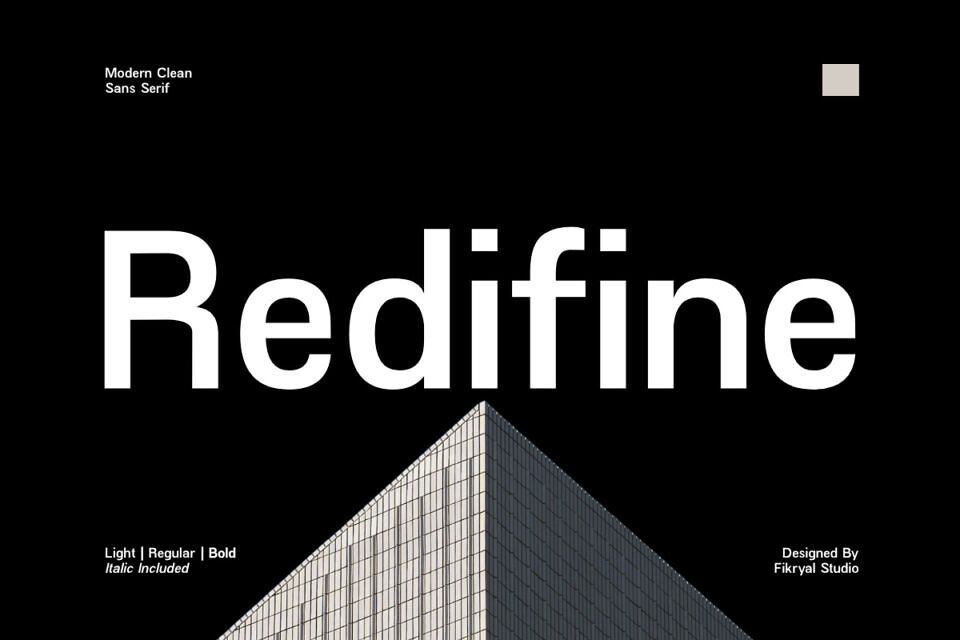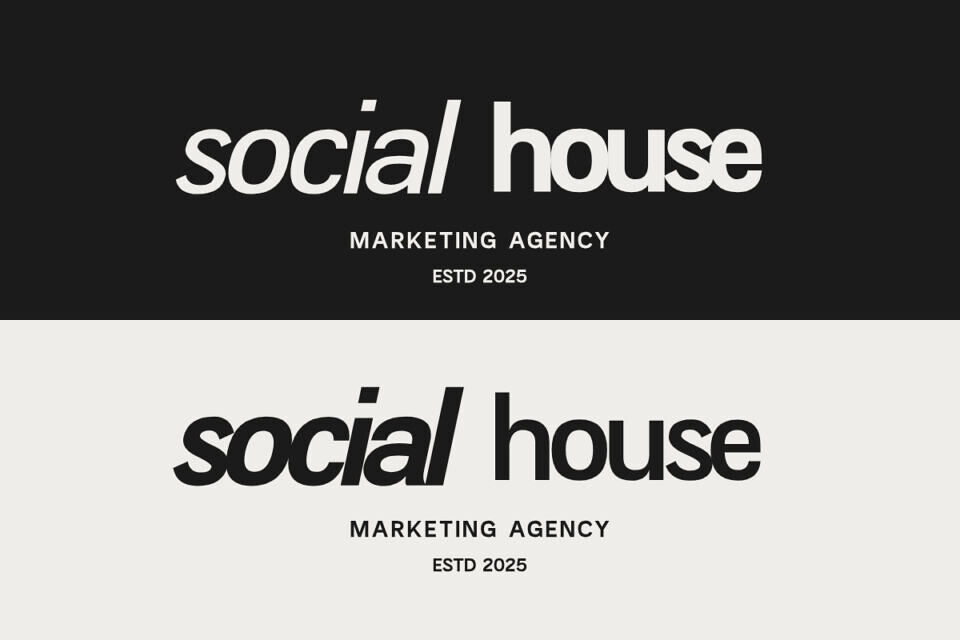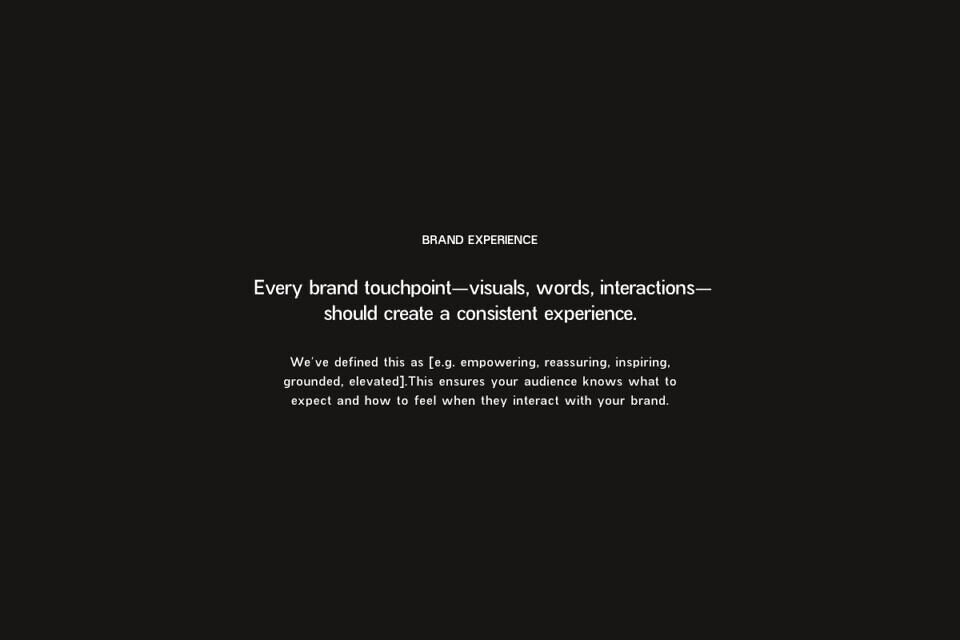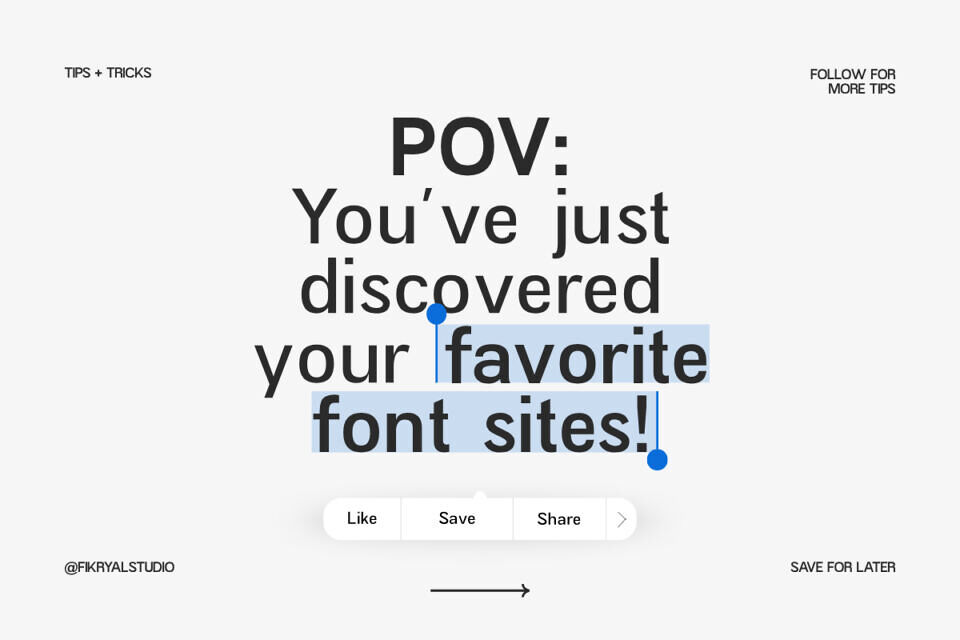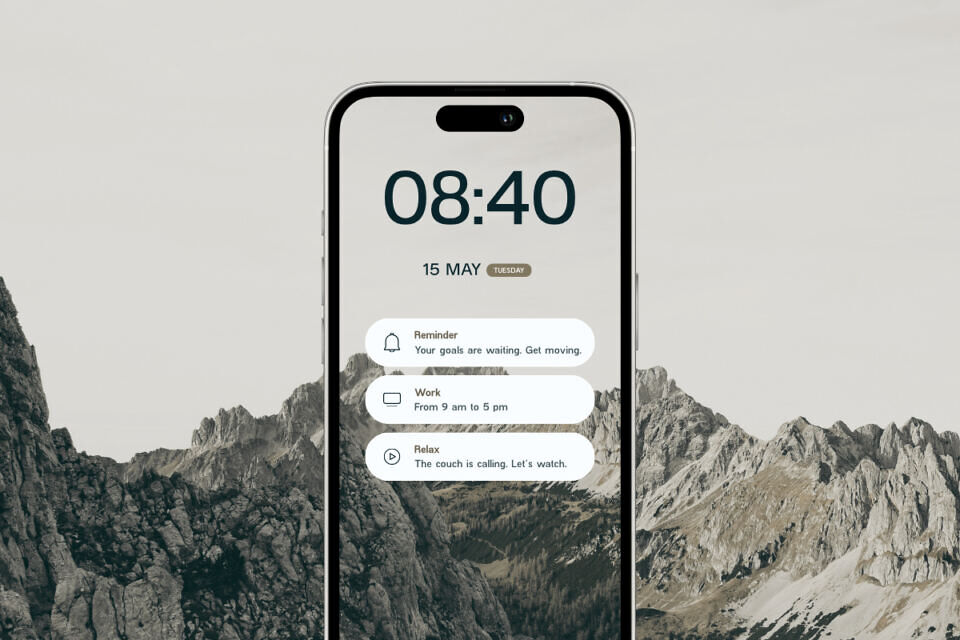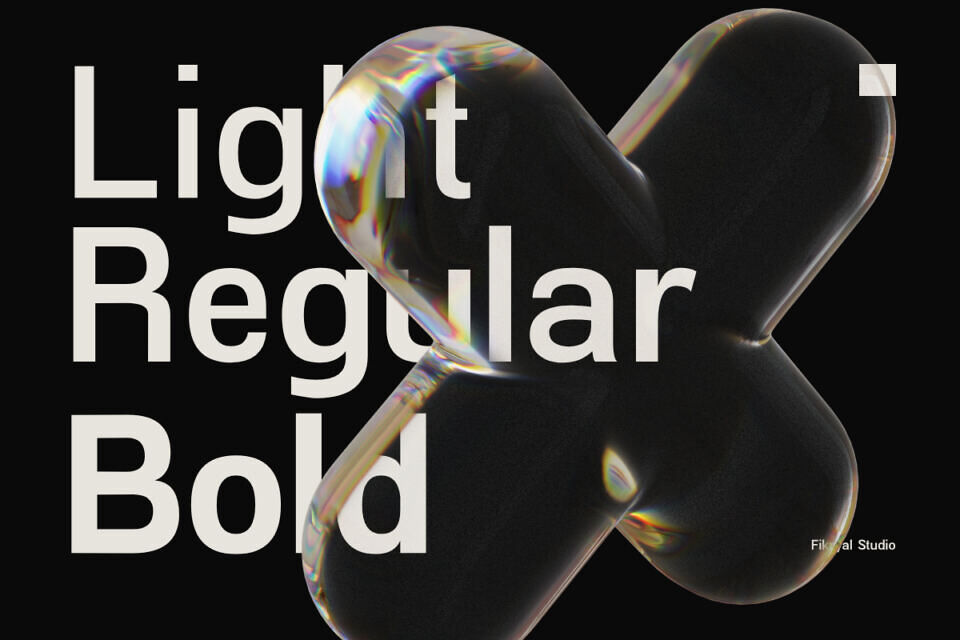
Redifine Font Family
Redifine is a clean, modern sans serif font designed to deliver clarity, elegance, and versatility in every project. With its minimalist structure and contemporary feel, Redifine is perfect for designers who want a professional and polished look without sacrificing readability.
Crafted with precision, this font family offers a balanced combination of simplicity and functionality, making it suitable for a wide range of design purposes—from branding and corporate identity to editorial layouts and digital interfaces.
Redifine comes with multiple weights and styles, including Light, Regular, Bold, and their Italic counterparts, giving you flexibility to create strong visual hierarchies and dynamic typography compositions.